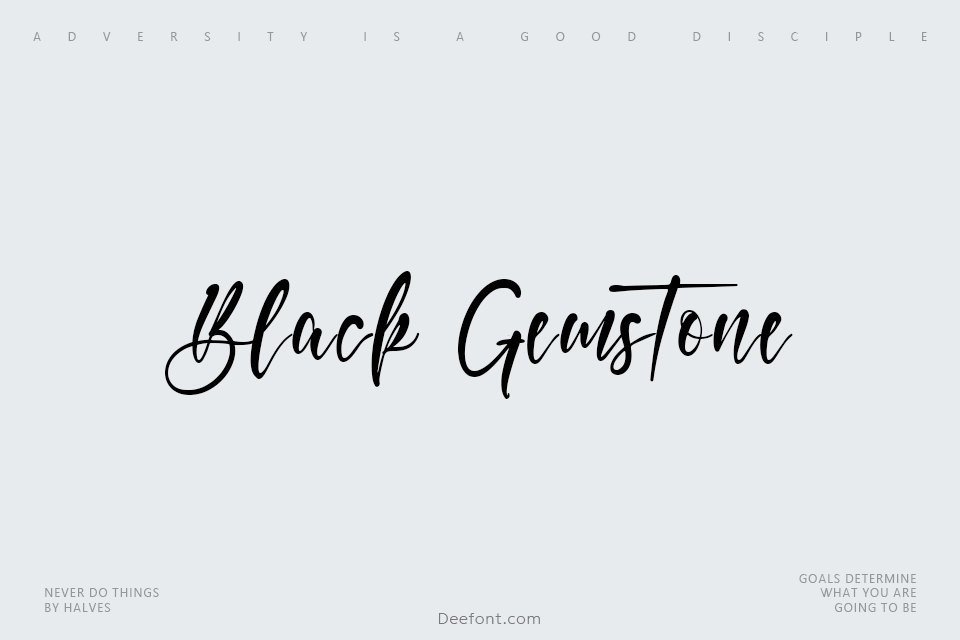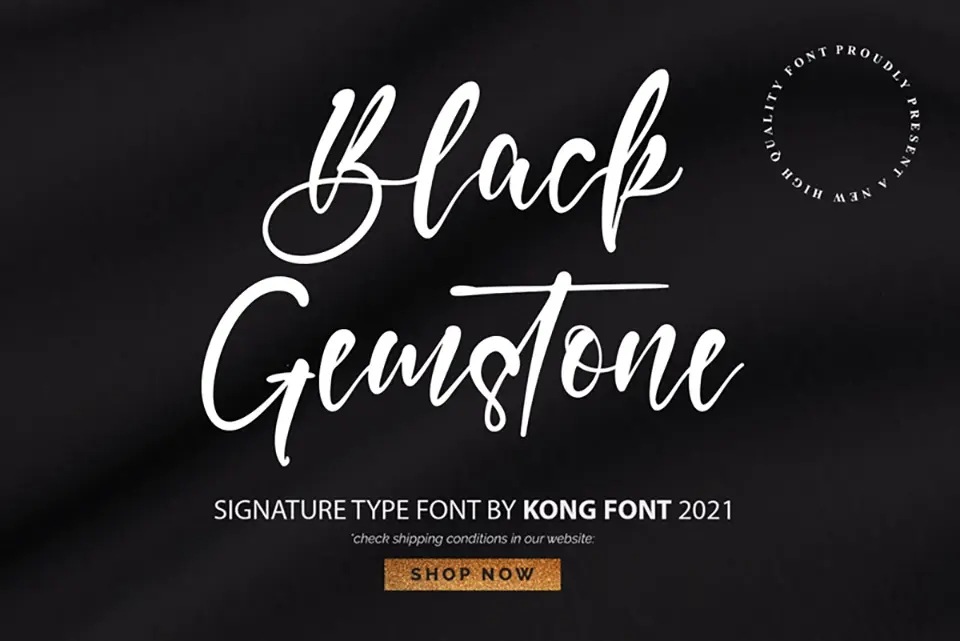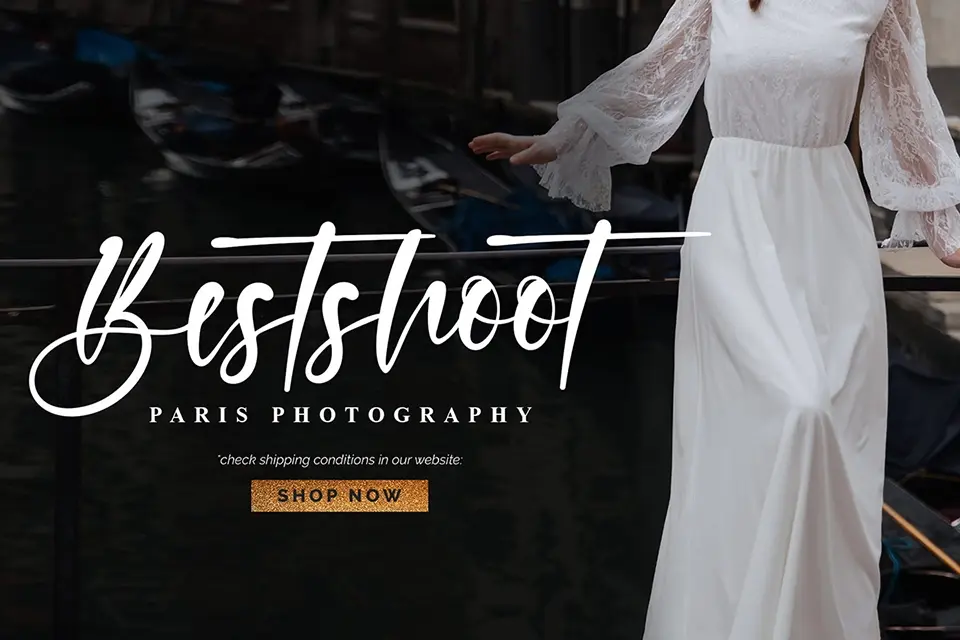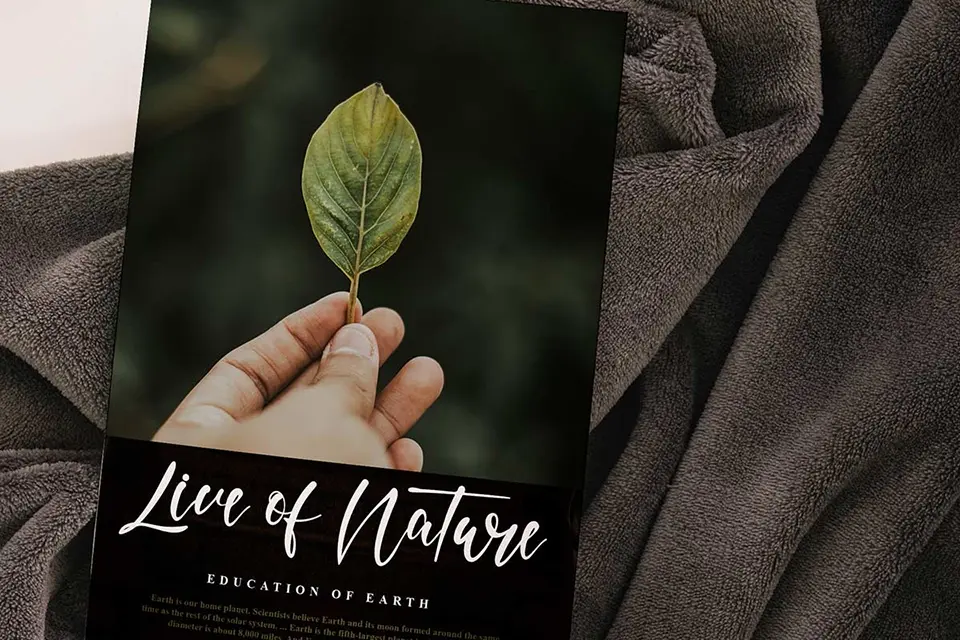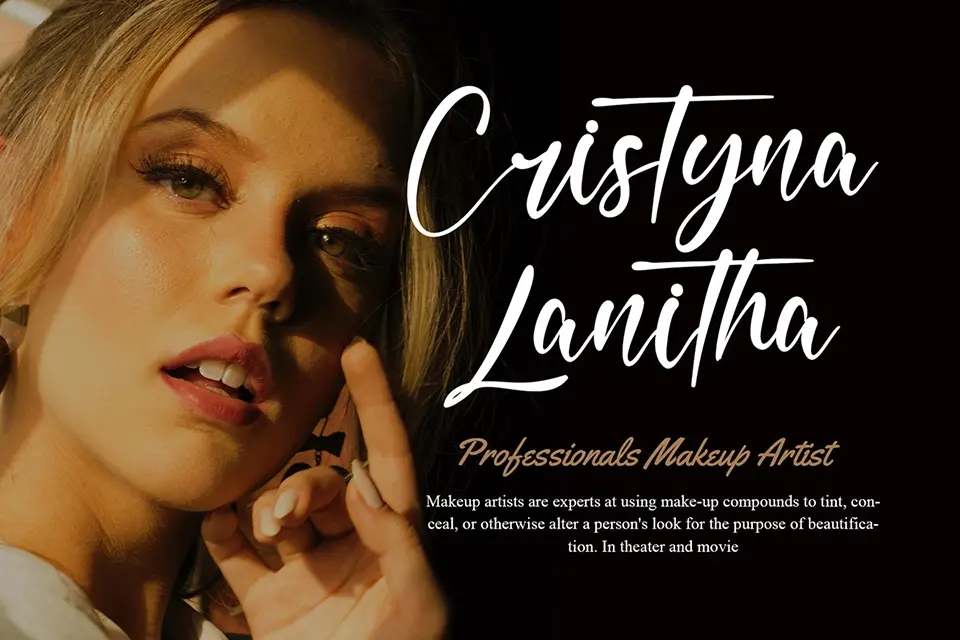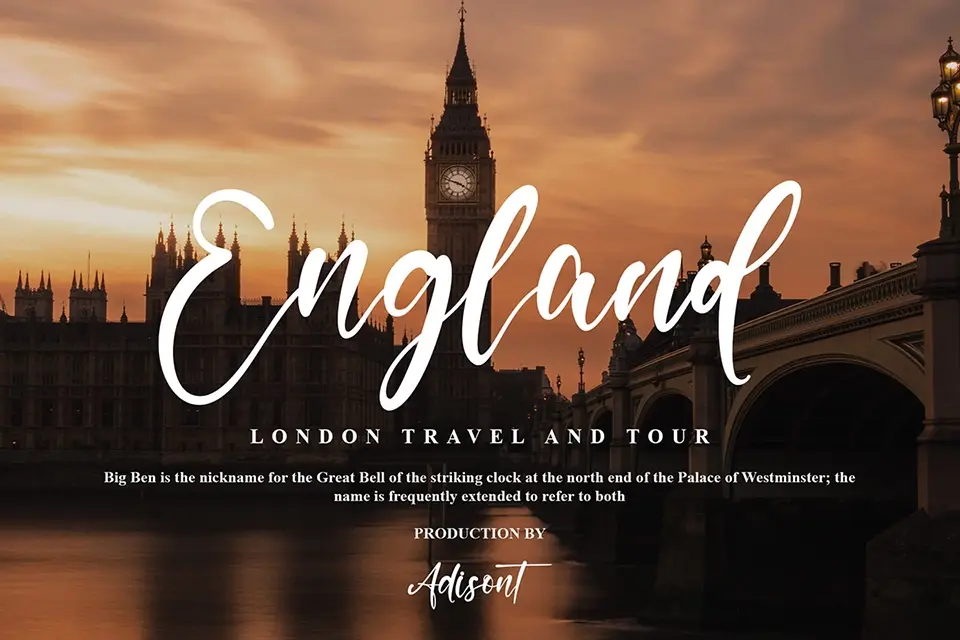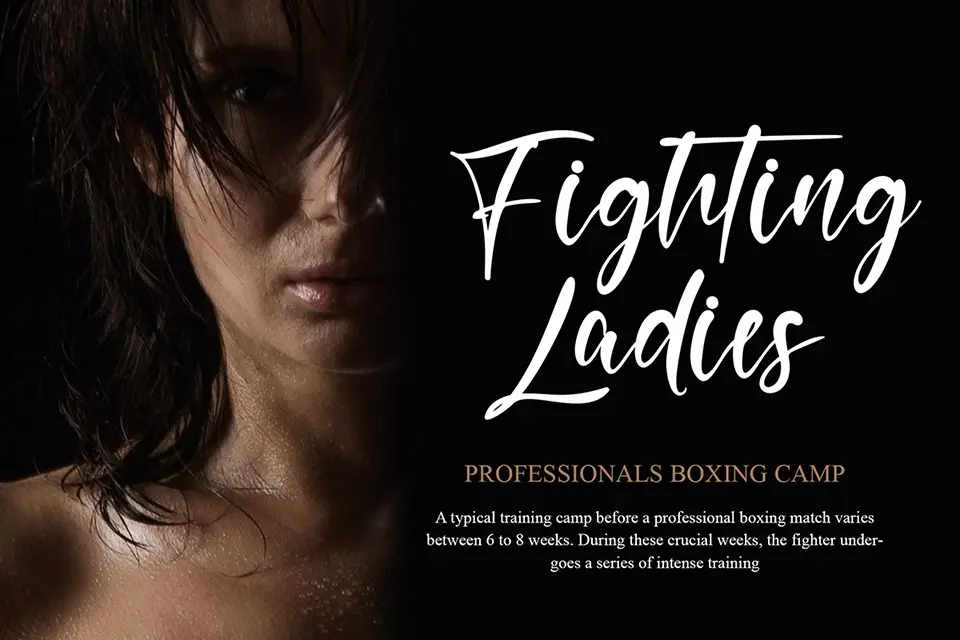
Black Gemstone Font
Black Gemstone is a contemporary handwritten script font with elegant brush strokes, perfect for creating stunning invitations and creative designs. This versatile typeface excels in wedding invitations, birthday celebrations, branding projects, digital lettering, T-shirt designs, posters, and magazine covers. With its modern calligraphic aesthetic, Black Gemstone brings sophistication and charm to any typography project requiring elegance and artistic flair.